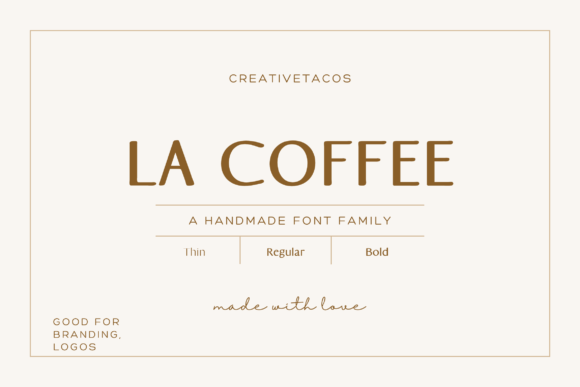
Looking to add a stylish and professional touch to your branding, logos, or Instagram quotes? Look no further than La Coffee Font, the best font for cool book projects! Created by Creative Tacos, this sleek and cool sans serif font is the perfect choice for anyone who wants to stand out from the crowd.
With its unique and eye-catching design, La Coffee Font is sure to captivate your audience. Whether you're creating invitations, packaging, slideshows, or headlines, this font will give your projects a modern and sophisticated look. Its versatility knows no bounds - from lettering to posters, branding to inspirational quotes, magazine layouts to website designs, La Coffee Font is the ultimate tool for unleashing your creativity.
Imagine the impact this font will have on your advertising campaigns. With La Coffee Font, your ads will grab attention and leave a lasting impression. Its clean and elegant lines will make your brand look professional and trustworthy, while its stylish curves will add a touch of creativity and flair.
Don't limit yourself to just one creative endeavor - La Coffee Font can do it all. Whether you're designing book covers, packaging, or even creating unique and memorable invitations, this font will elevate your projects to new heights. Its versatility and adaptability make it the perfect choice for any project, big or small.